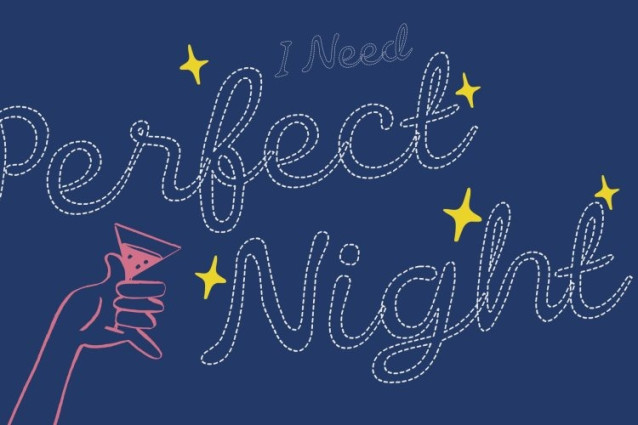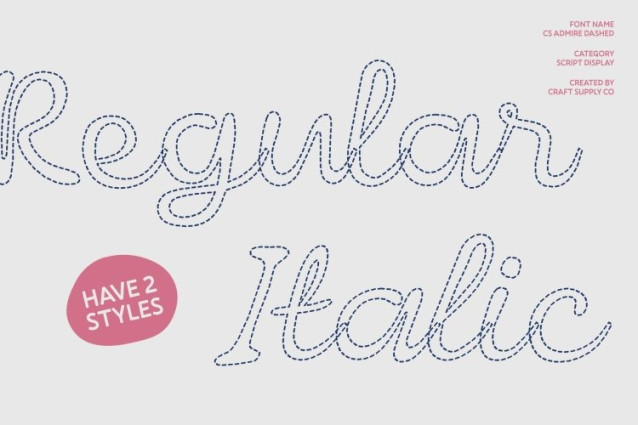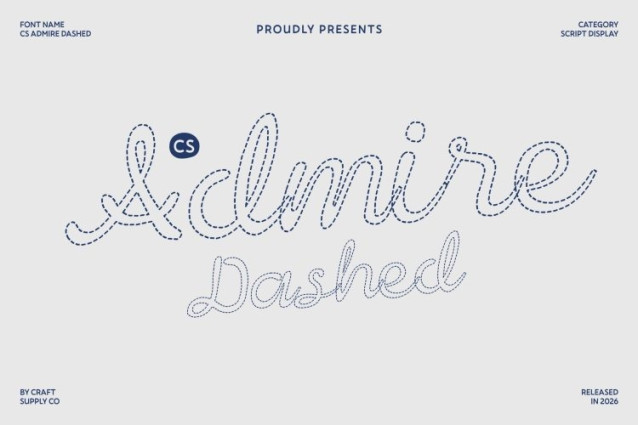
CS Admire Dashed Font
CS Admire Dashed Font is a modern script font that blends the spontaneity of handwriting with a clean, contemporary aesthetic. Its smooth, flowing strokes are enhanced by a distinctive dashed construction each letter formed from delicate broken segments rather than solid lines. This creates a light, airy texture that feels expressive, creative, and visually refined.
Personal Touch with Creative, Relaxed Poise
Each letterform reflects the natural rhythm of handwriting, evoking authenticity and warmth. The dashed strokes mimic the gentle lift of a pen, adding movement and a relaxed handcrafted feel while maintaining clarity and structure. This balance allows the font to feel both personal and professional soft yet confident, artistic yet polished.
Stylish and Versatile for Modern Design
This is ideal for feminine, stylish, and contemporary projects such as beauty packaging, fashion branding, social media graphics, invitations, and signature-style logos. The segmented strokes add a subtle decorative charm, enhancing visual appeal without overpowering the design.
Where Handwriting Meets Elegant Creativity
Combining handcrafted beauty with modern balance, This font offers a unique typographic voice that feels human, expressive, and sophisticated. Its airy dashed detailing transforms every word into a graceful visual statement perfect for designers who want to convey individuality, elegance, and a relaxed creative spirit.